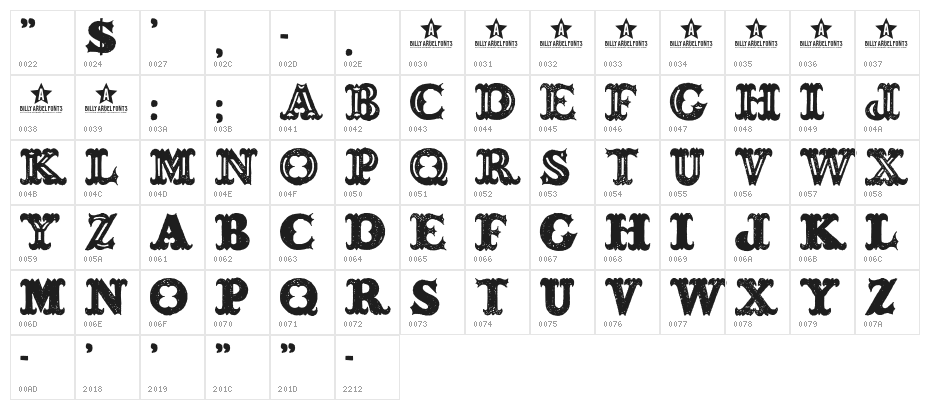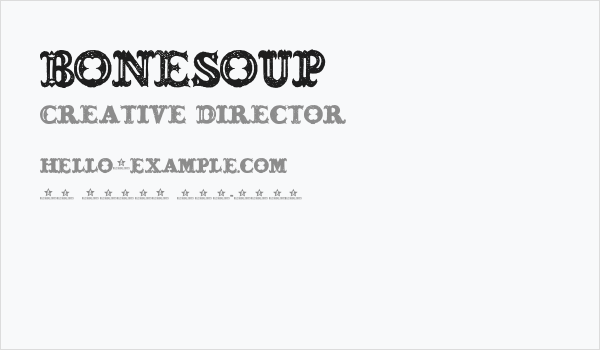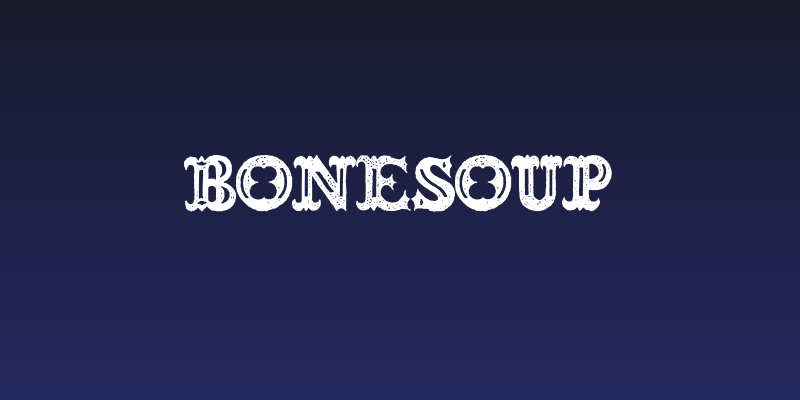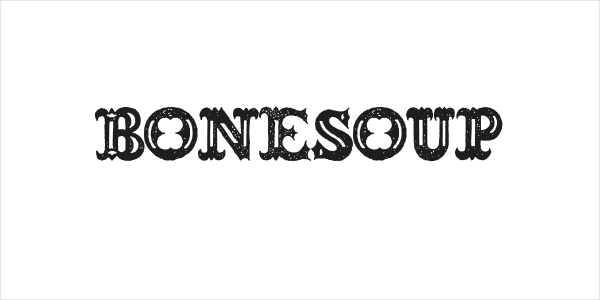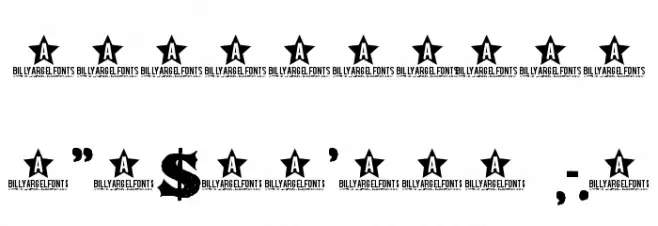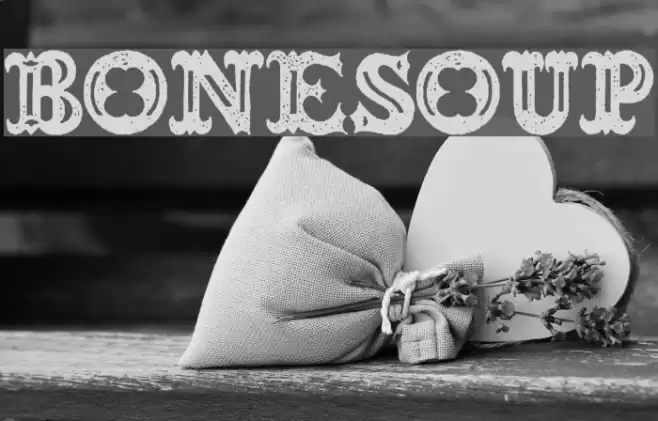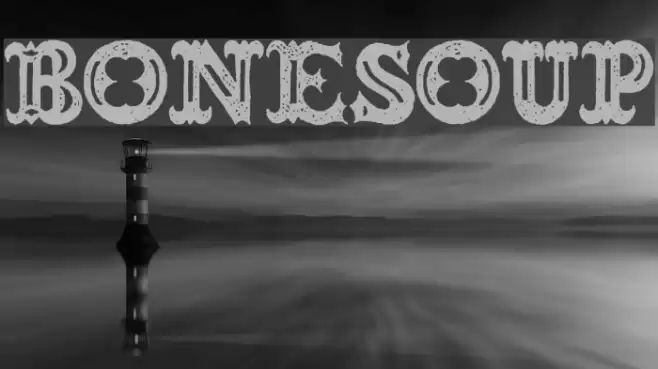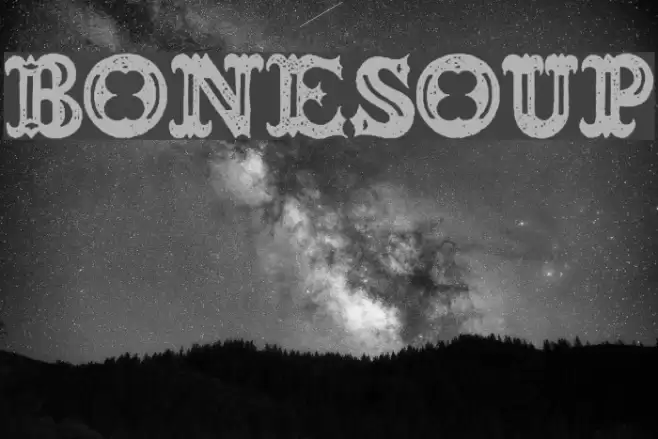
BONESOUP Font
✎ Distorted Eroded
BONESOUP Description
This font features a bold and rugged design with a distressed, textured appearance that gives it a unique and edgy look. The characters are heavily stylized, with irregular edges and a grunge-like effect that adds a sense of depth and character. The uppercase letters are particularly striking, with a strong presence that makes them ideal for attention-grabbing headlines or titles. The font's rough texture and bold weight make it suitable for projects that require a dramatic and impactful visual style.
| Proposed Projects | Ideal for posters, album covers, event flyers, and any project needing a bold, edgy aesthetic. |